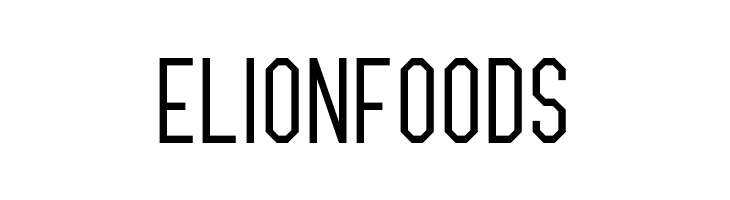
A bold, modern font with tall, narrow characters and a unique blend of angles and curves.
A bold, outlined font with a three-dimensional effect and strong visual impact.
( Fonts by Jeff Levine. FREEWARE )
A playful dingbat font with quirky, illustrative symbols.
( Fonts by Jeff Levine. FREEWARE )
A playful, eclectic font with vintage-inspired graphics and text styles.